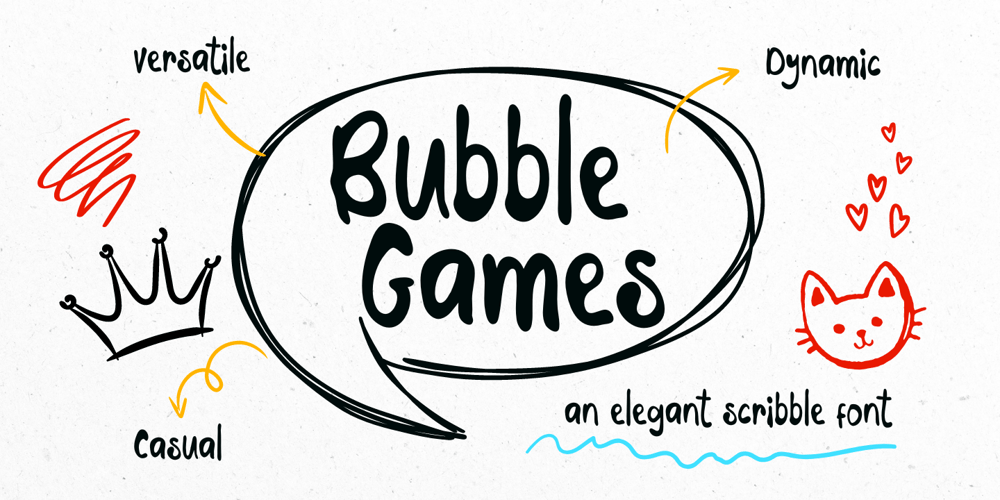
Bubble Games Font Family was designed by Dian Haniffan Hadi and published by Beary. Bubble Games contains 1 styles and family package options. Bubble Games Font is a jolly and charming display font. Whimsical and a bit quirky, this font will brighten up each of your designs. Add it confidently to your projects, and you will love the results